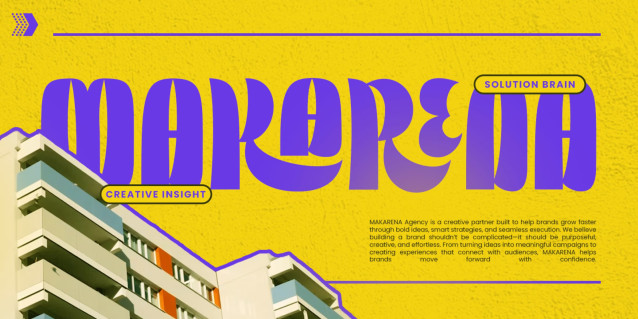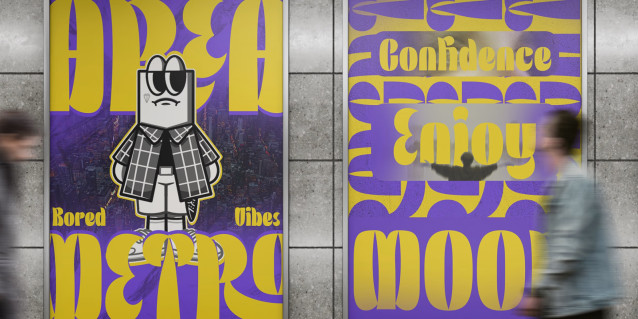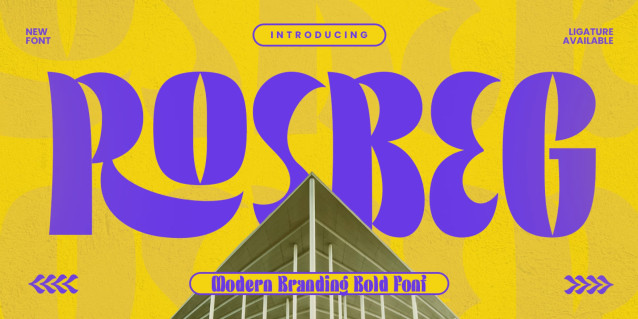
ROSBEG – Modern Branding Bold Font
ROSBEG – Modern Branding Bold Font, a bold and powerful Sans Serif Display Font designed to make your brand stand out. With its strong presence, clean structure, and modern character, ROSBEG is perfect for branding, logos, headlines, posters, packaging, fashion, editorial, and other creative projects that need a confident and impactful look.
Already Uppercase, Lowercase, Punctuations and Numerals
Extra Alternates & Ligatures Collection